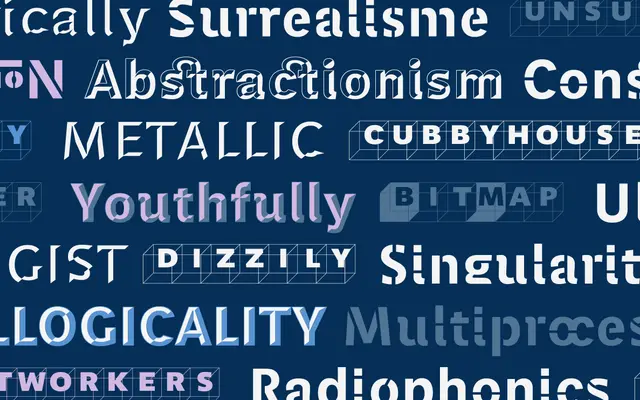
Perec Ludique
Pampatype · Alejandro Lo Celso · 2010
A playful three-part display family by Alejandro Lo Celso, drawing on jewellers' shop signage, stencil lettering and crossword typography within the broader Perec super family.
Part of Pampatype's Perec super family, Perec Ludique comprises three distinct styles for expressive typesetting. Oncle Jacques is a tridimensional chrome-effect font split into Ombre and Lumière layers for colour editing, inspired by traditional jewellers' signage; Pochoir is a stencil font rich in alternates and ligatures; and Cubes follows the logic of crossword grids, programmed for intelligent character juxtaposition. Each style carries substantial OpenType features including oldstyle figures, extended diacritics and linguistic ligatures, giving the family practical depth beneath its decorative surface.
A decorative display family comprising three highly distinct styles: a tridimensional chrome layering font, a stencil font, and a crossword-cube font. The playful, experimental nature places it firmly in the display/decorative category.